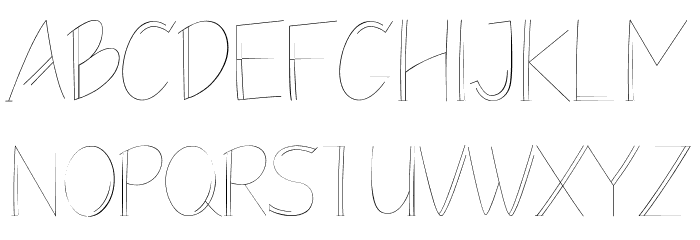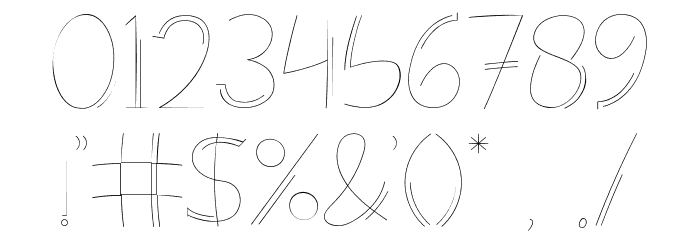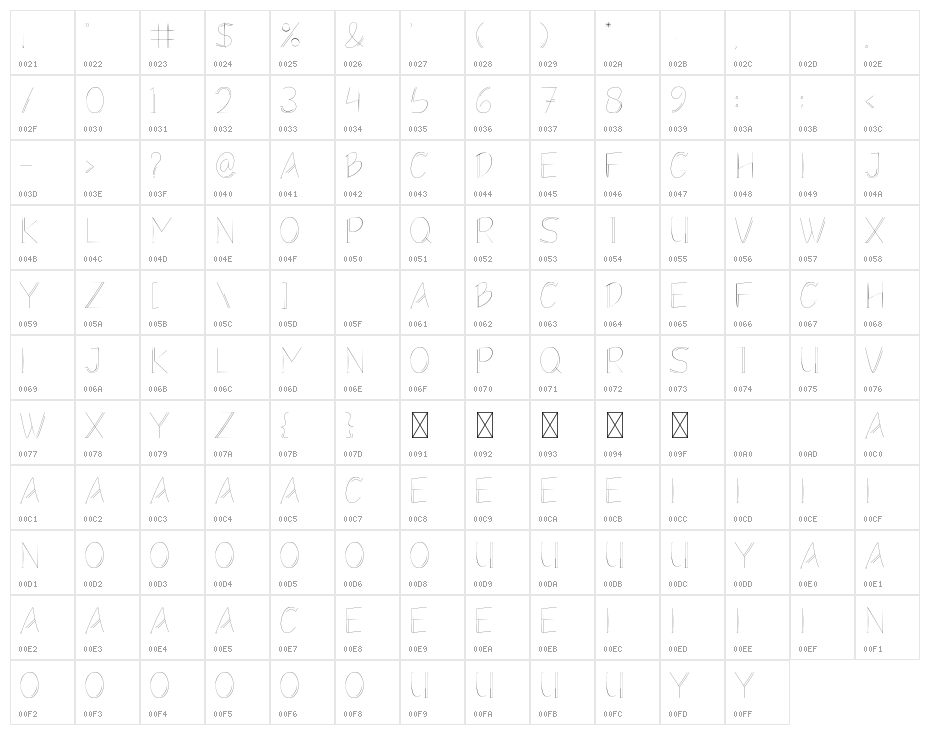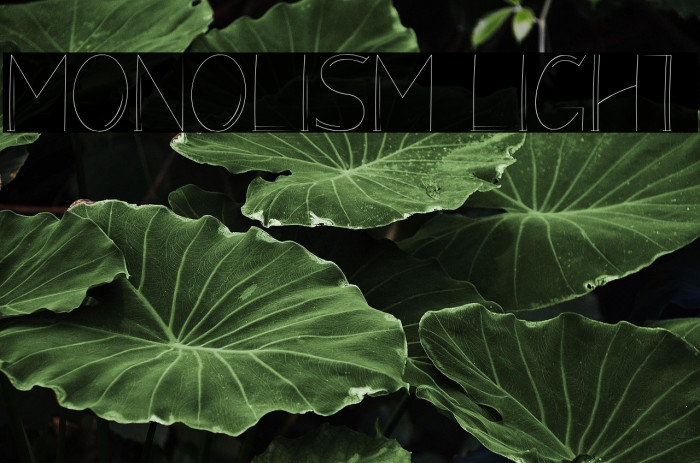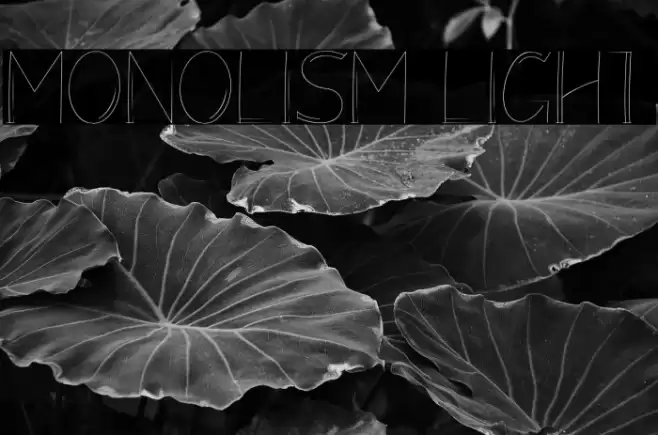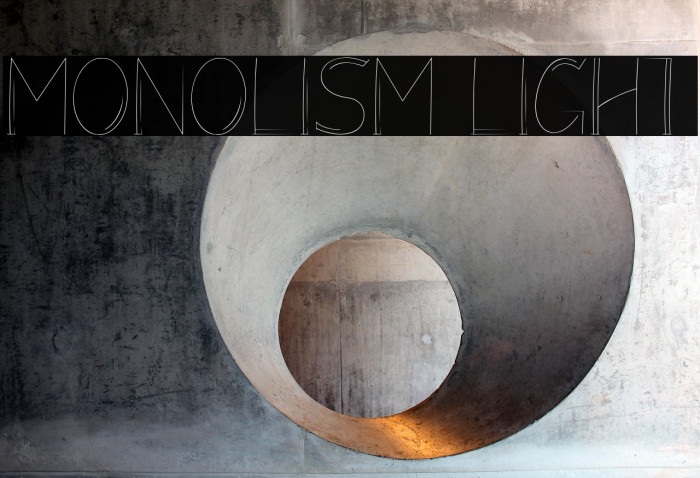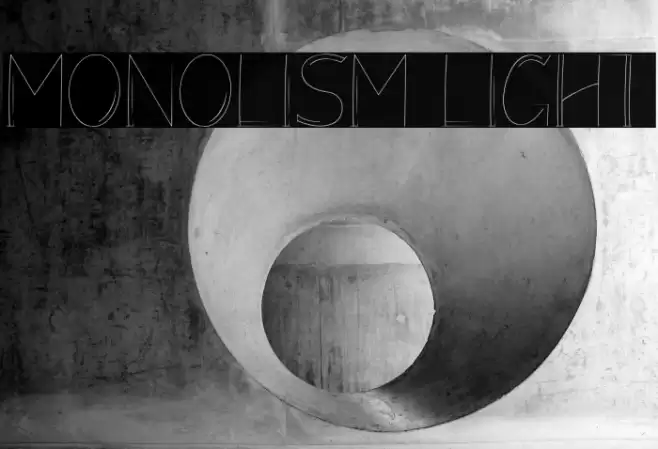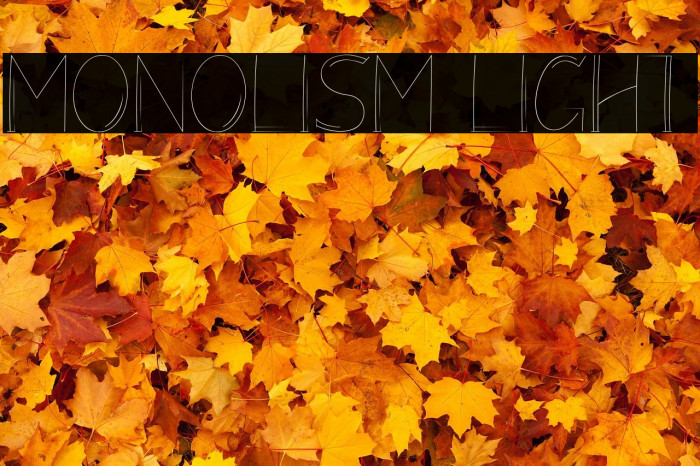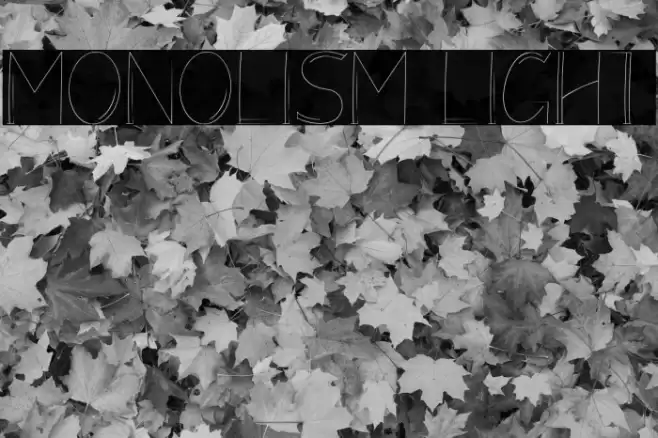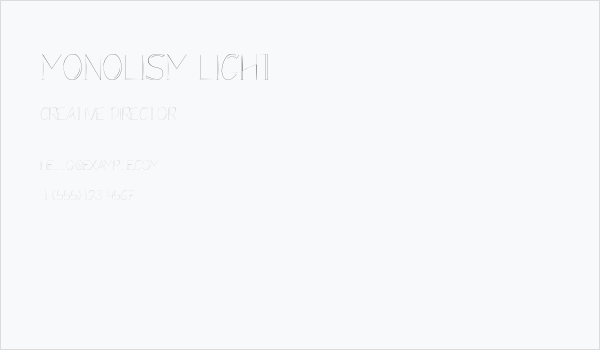
Monolism Light Font
This font features a unique, hand-drawn aesthetic with a light and airy feel. The characters are elongated and slightly irregular, giving it a whimsical and artistic appearance. The strokes are thin and consistent, creating a delicate and elegant look. The uppercase and lowercase letters maintain a cohesive style, with a playful yet sophisticated vibe. The numerals and special characters are designed to match the overall style, ensuring a harmonious visual experience. This font is perfect for projects that require a touch of creativity and individuality.
A light, hand-drawn font with a whimsical and artistic style.
- Proposed Projects: Ideal for creative projects such as invitations, greeting cards, artistic posters, and branding materials that require a unique and personal touch.
- Overall Style: Artistic
- Use Case: Logos, Invitations, Artistic Posters